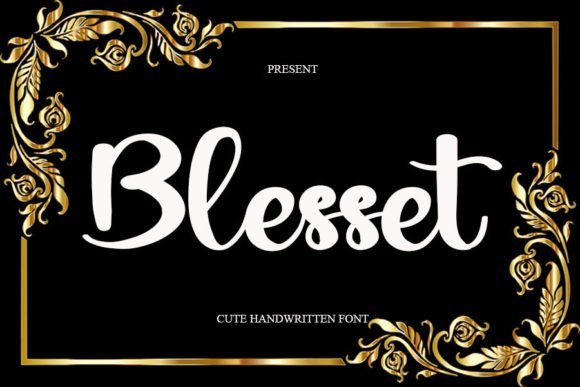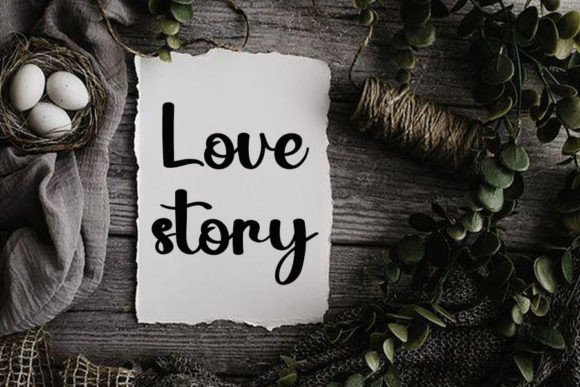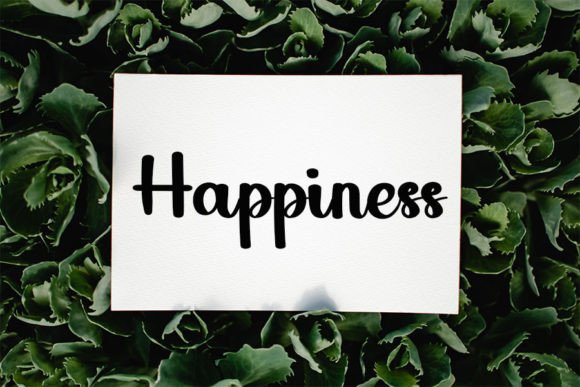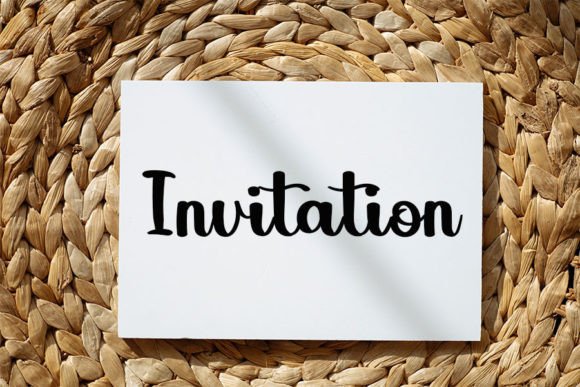
About Blesset Font
Blesset font is a magical handwritten typeface carefully crafted to blend elegance with a playful and quirky personality. This font’s clean lines and charming style make it a perfect choice for designers who want to add a unique and personal touch to their creative projects. Whether you’re working on logos, branding materials, social media posts, or crafty DIY projects, Blesset font delivers a fresh and sophisticated look that stands out.
Elegant and Playful Handwriting
Blesset font offers a distinctive blend of elegance and whimsy. Its slightly quirky characters give your designs a lively and approachable vibe, while its clean strokes ensure readability and professionalism. This balance makes Blesset suitable for a wide range of applications, from formal branding to casual creative works.
Perfect for Logos and Branding
The unique style of Blesset font enhances logos and branding projects by adding an artisanal and handcrafted feel. It helps brands create memorable visual identities that connect emotionally with their audience. Whether you run a boutique, a creative agency, or a personal brand, Blesset font adds charm and sophistication to your designs.
Ideal for Social Media and DIY Projects
Blessetfont shines on social media posts and DIY crafts. Its playful yet elegant look grabs attention and communicates warmth, making your messages more engaging. Use it on Instagram posts, YouTube thumbnails, greeting cards, or any project that benefits from a handmade touch.
Versatile and Easy to Customize
Thanks to its PUA encoding, Blessetfont provides easy access to all its glyphs and swashes. This feature allows you to customize your text effortlessly and create beautiful, varied designs. The font’s versatility makes it a valuable tool in any designer’s collection.
Why Choose Blesset Font?
Blessetfont offers the perfect combination of magical charm and elegant handwriting. Its quirky yet refined style sets your work apart and adds personality to every project. Whether you’re designing for professional branding or personal crafts, Blessetfont will bring your creative ideas to life with style and grace.